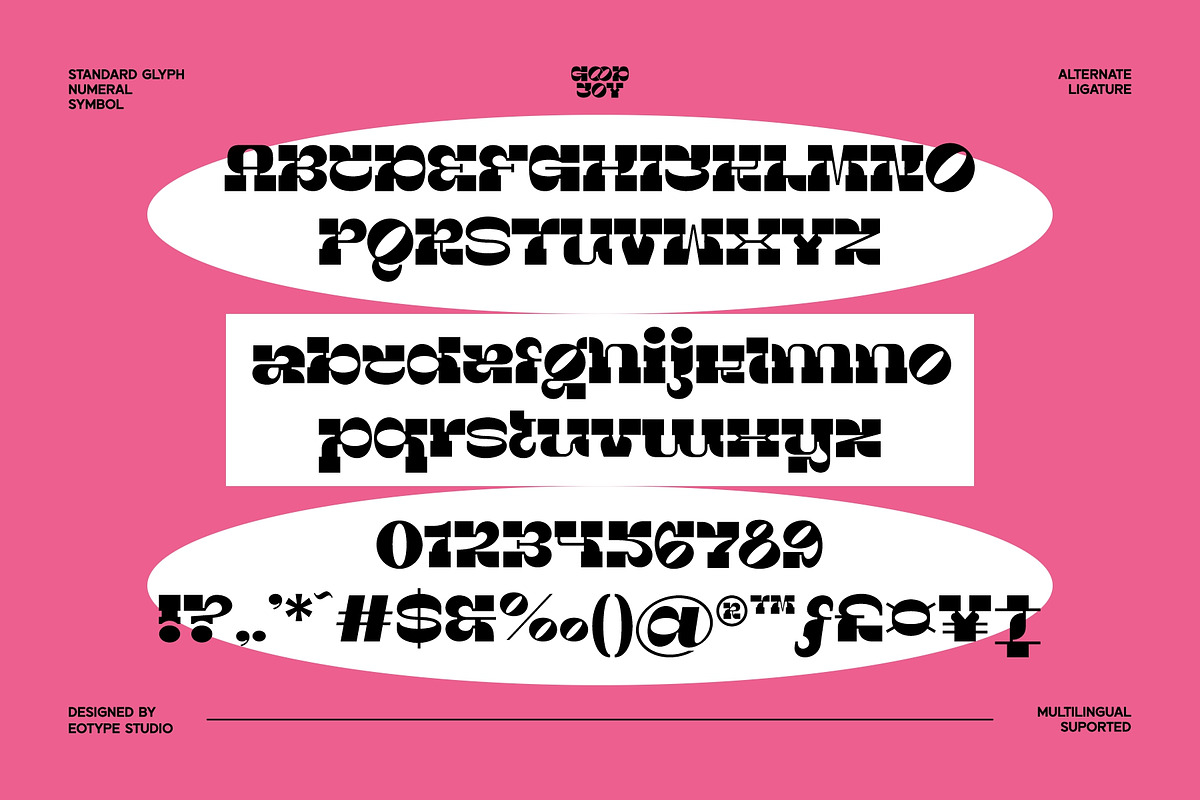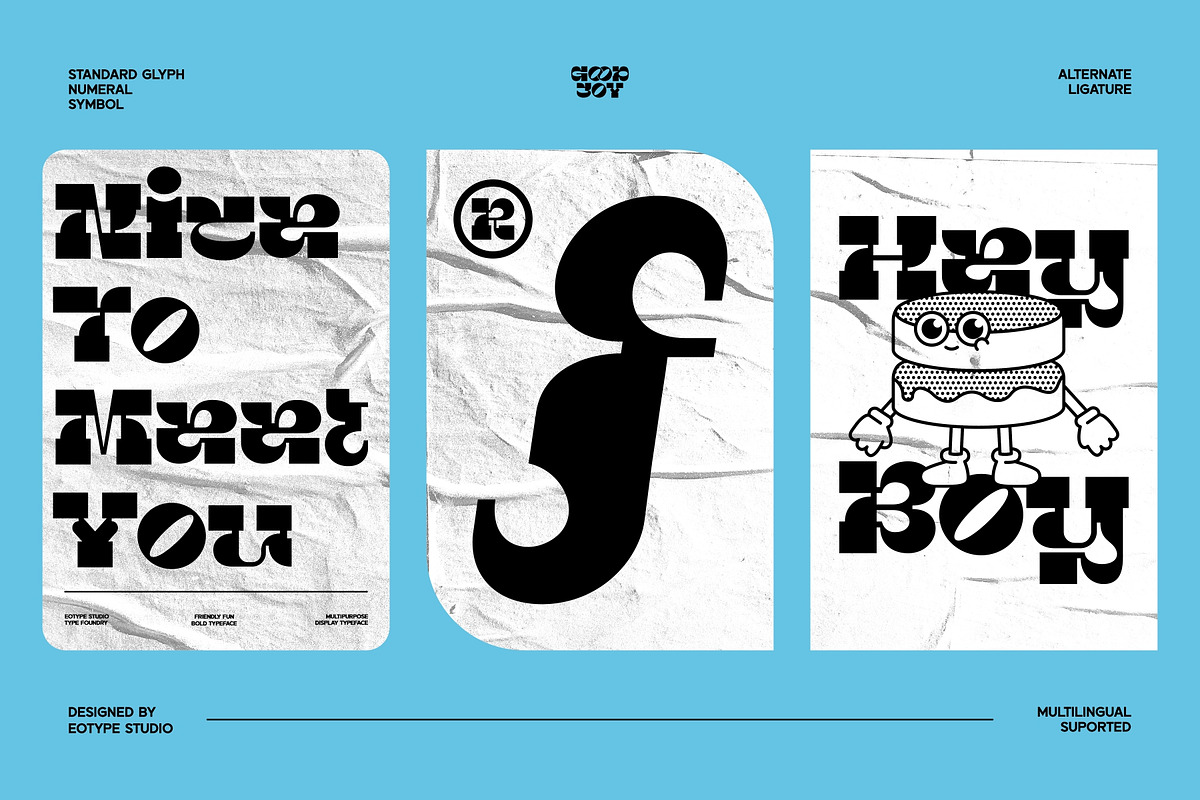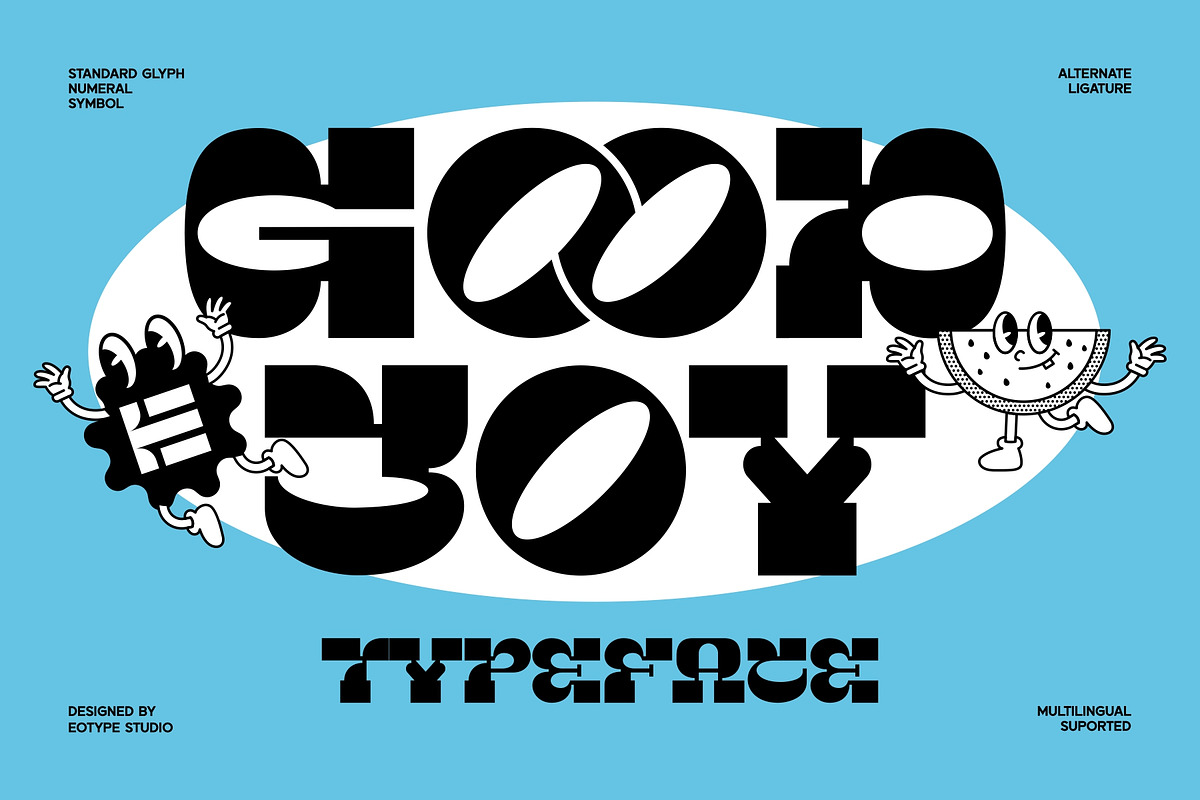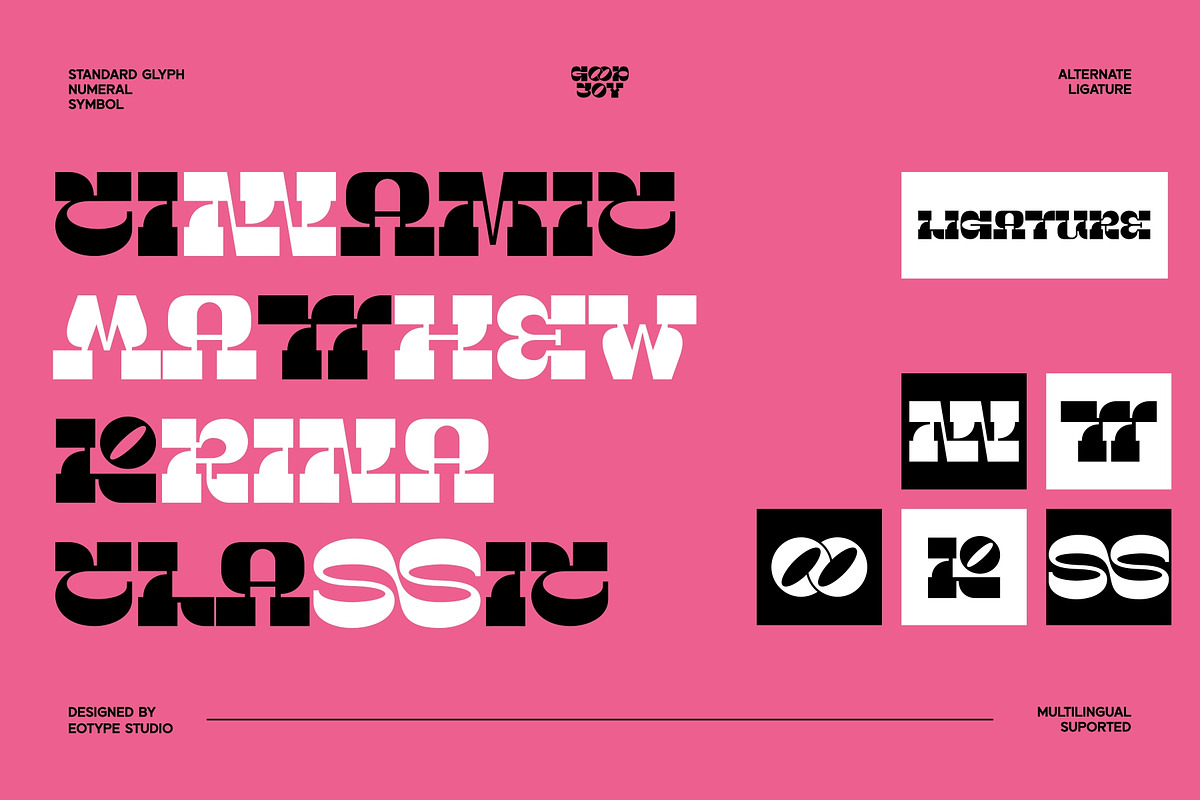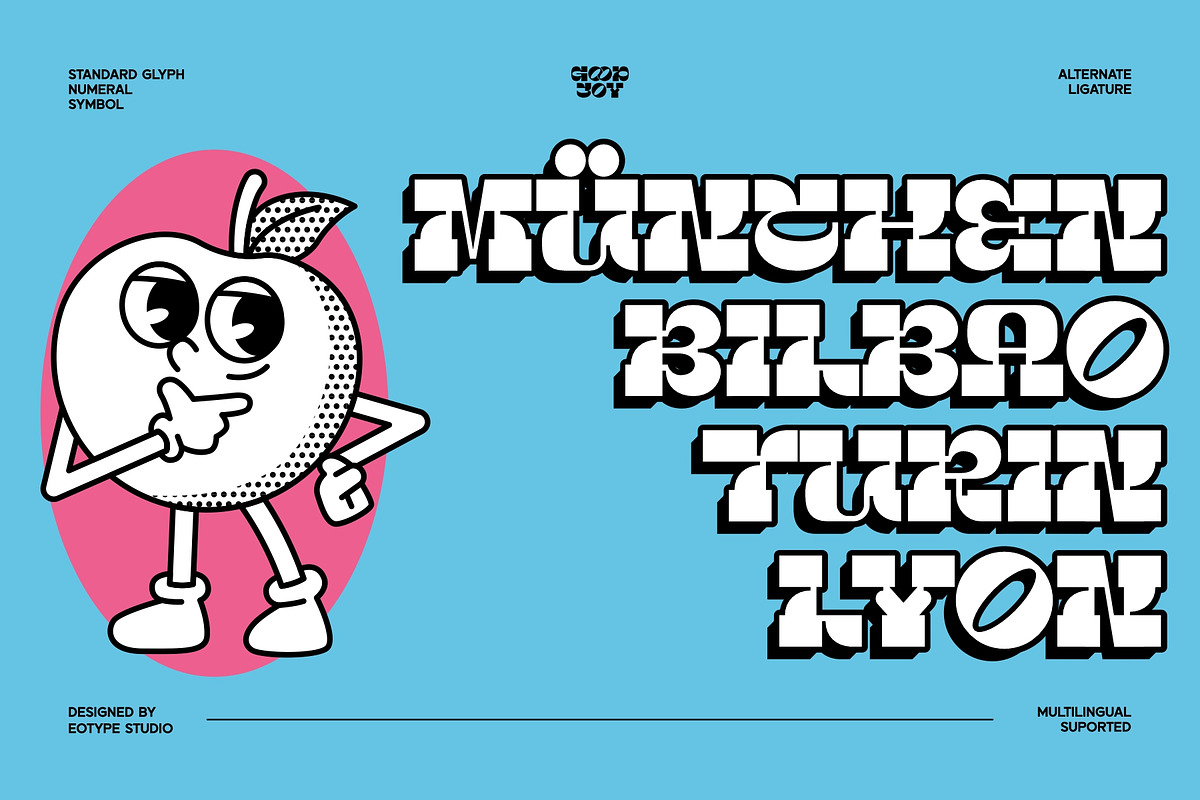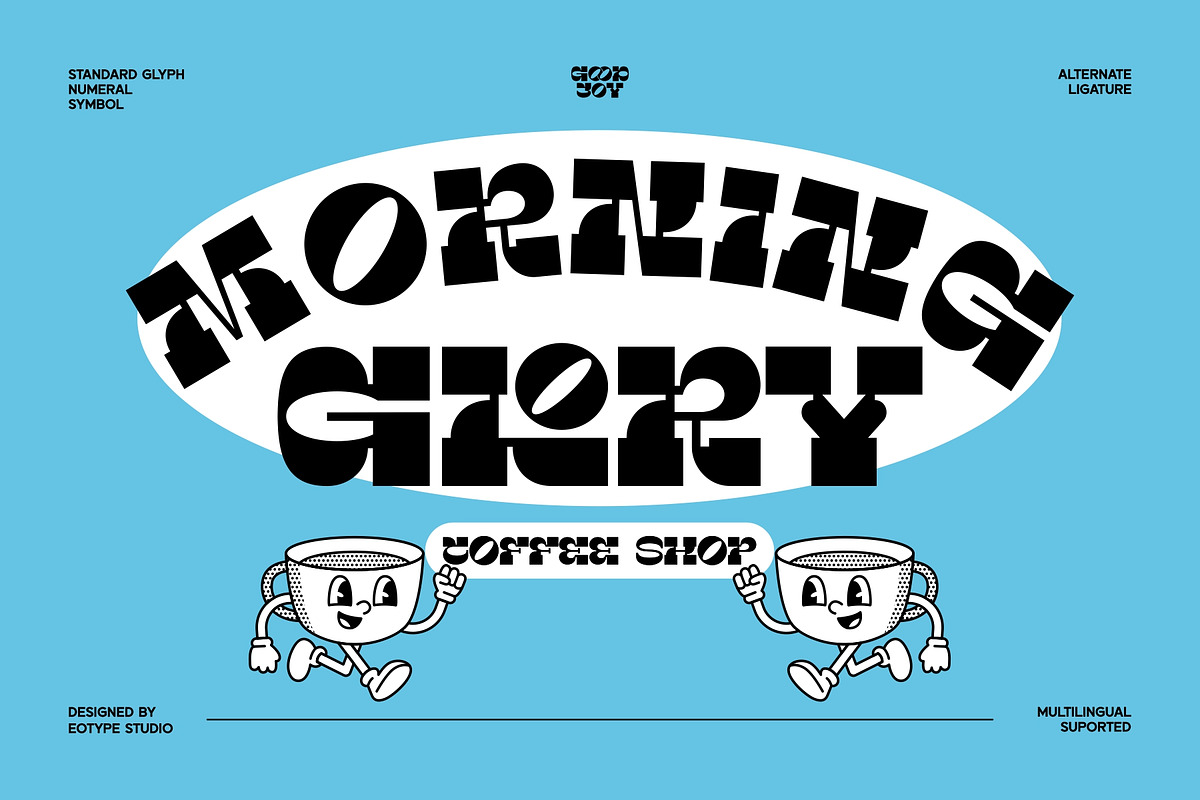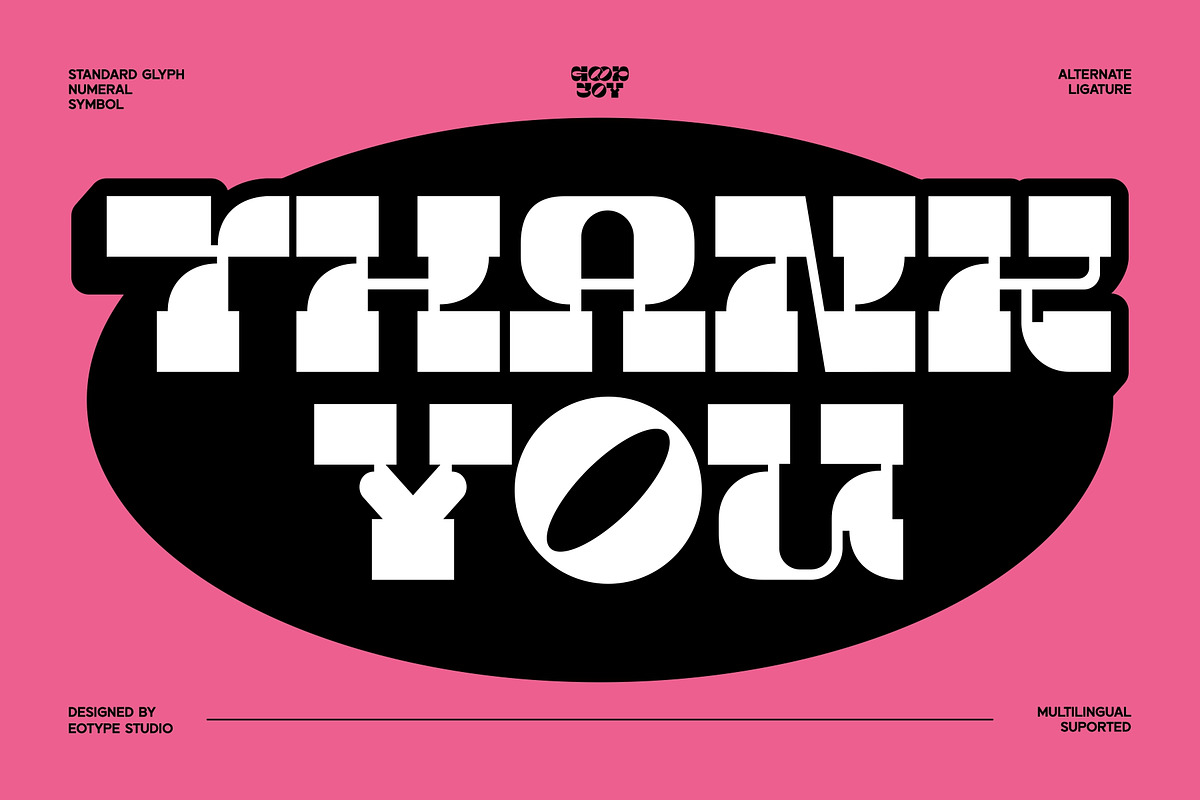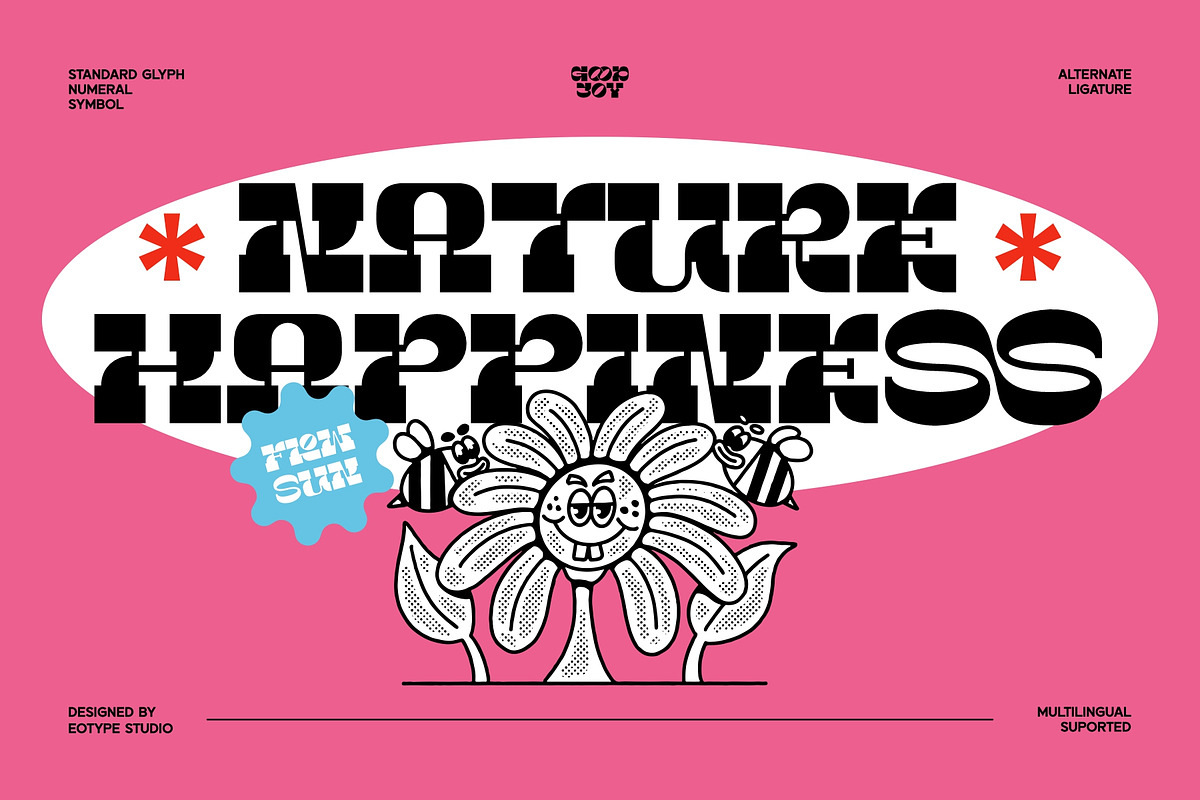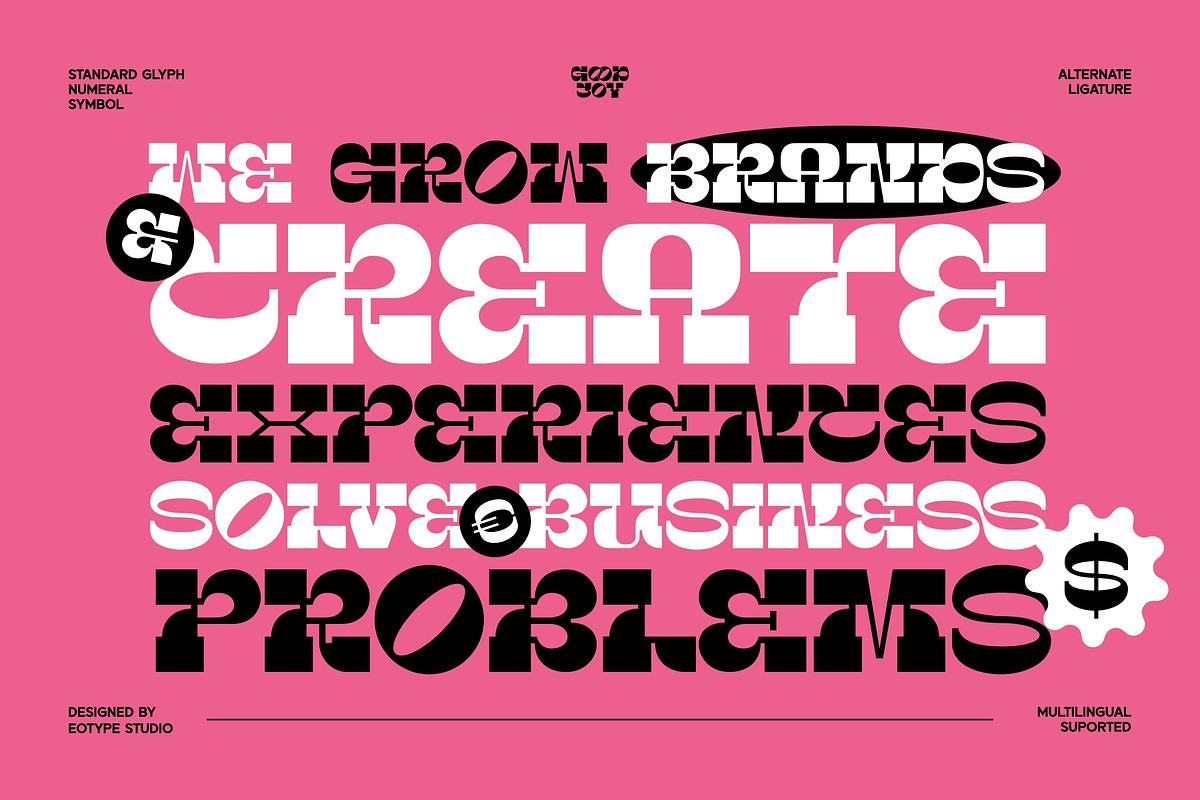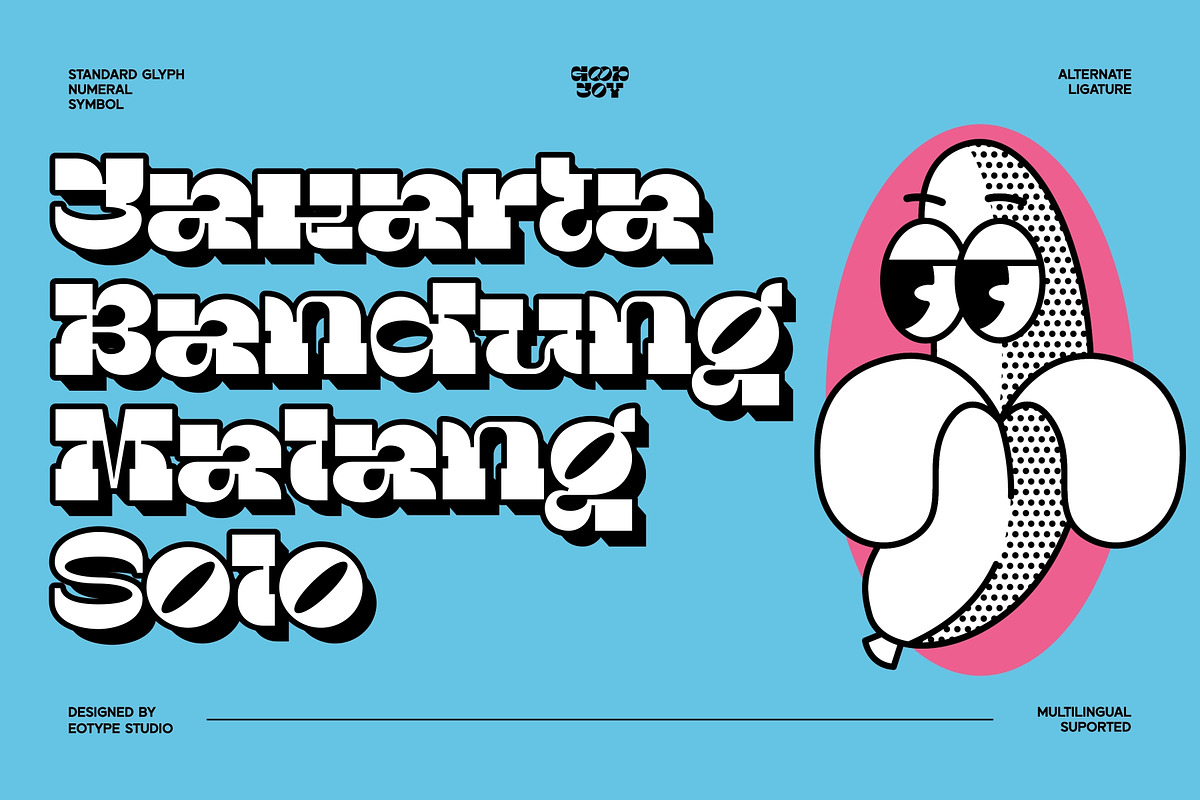
Good Joy
Good Joy exists on the edge between classic hippie aesthetics and rubber hose animation (which is a huge trend per se). Its quirky ambivalence allows you to feature it in the most theatrical projects, from cartoons and beer labels to clothes and jewelry. The font is a full-pack retro slab: you will access a standard character set, ligatures, alternates, and multilingual support.